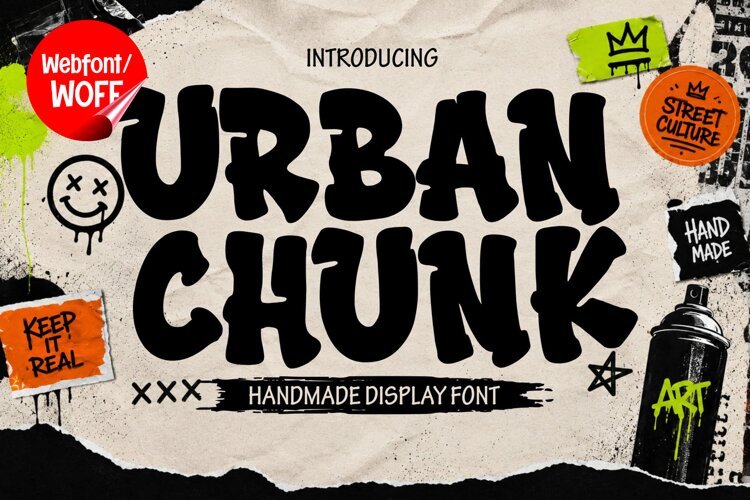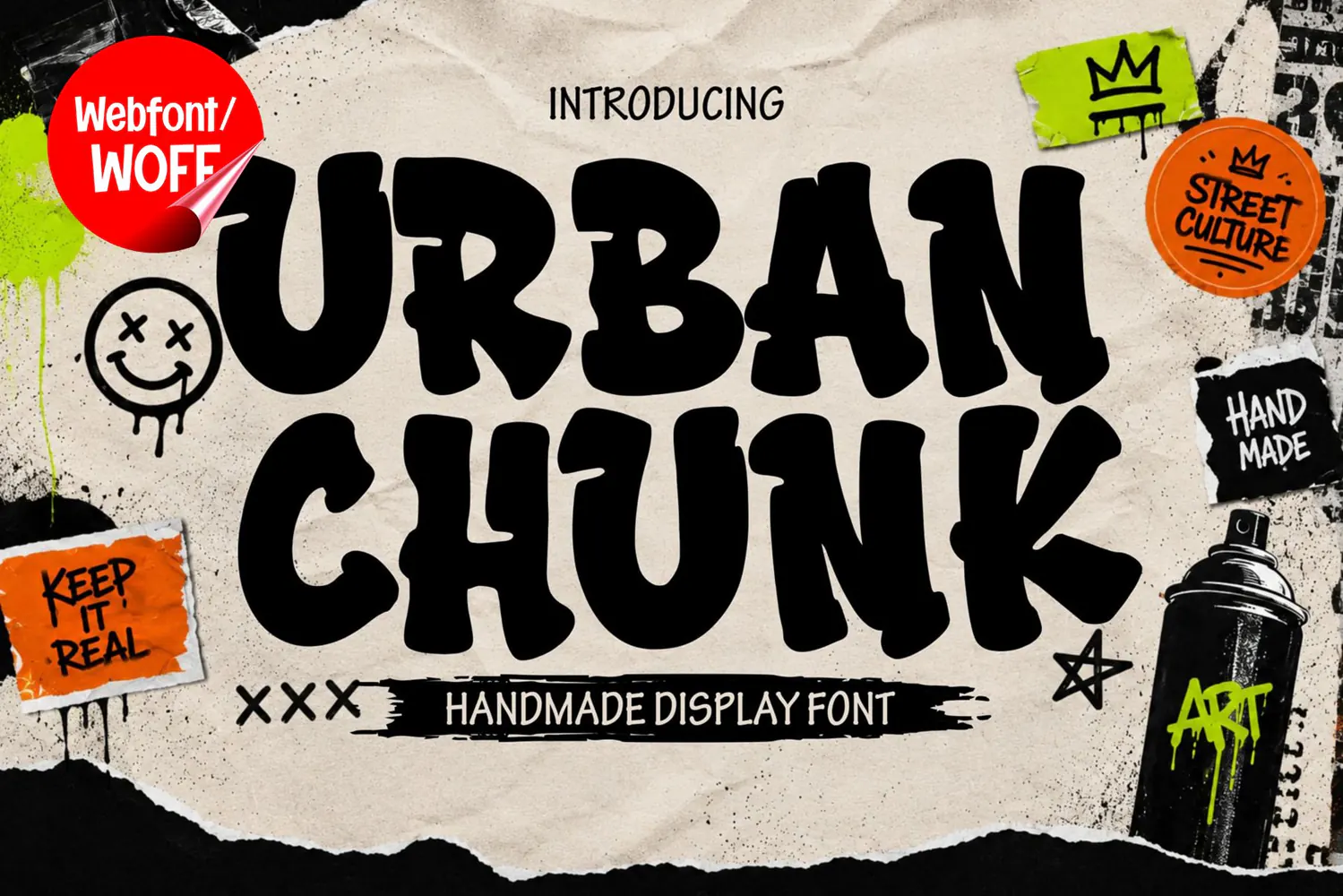
Bring street aesthetics and urban culture straight to your website using Urban Chunk Webfont. This bold and daring graffiti display font is specifically crafted to deliver a powerful, edgy, and attention-grabbing visual look for your visitors. Ideal for creative landing pages, designer portfolios, streetwear e-commerce sites, or urban art-themed blogs.
Make your website stand out with a strong character using the authentic graffiti style of Urban Chunk!
Urban Chunk Webfont